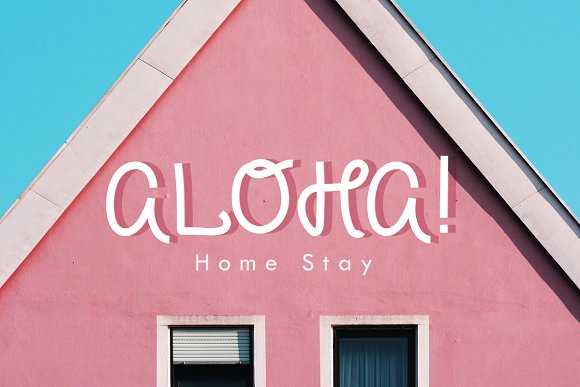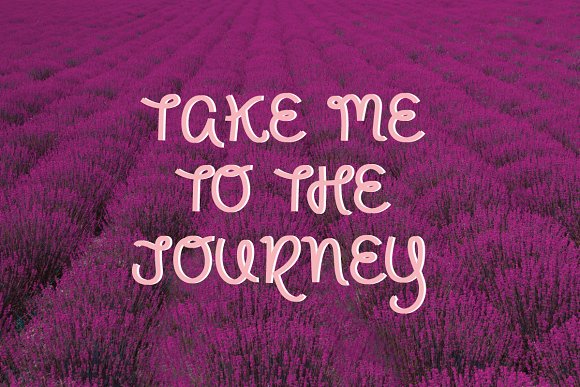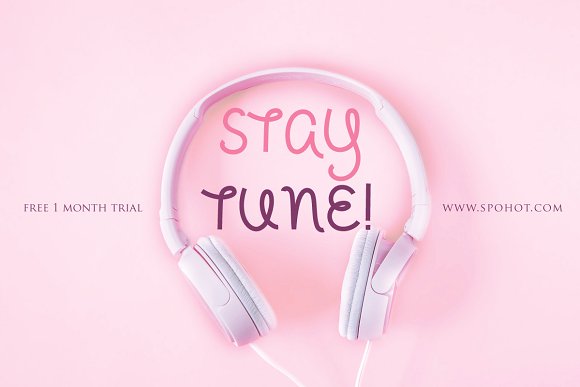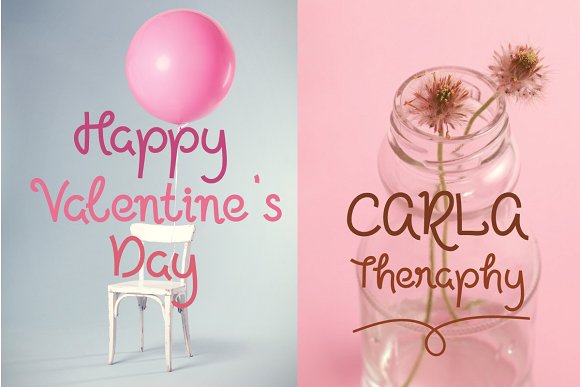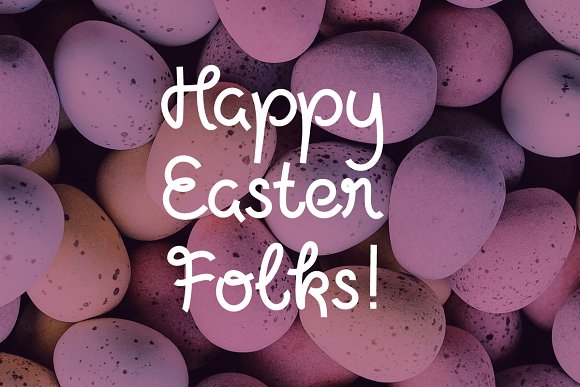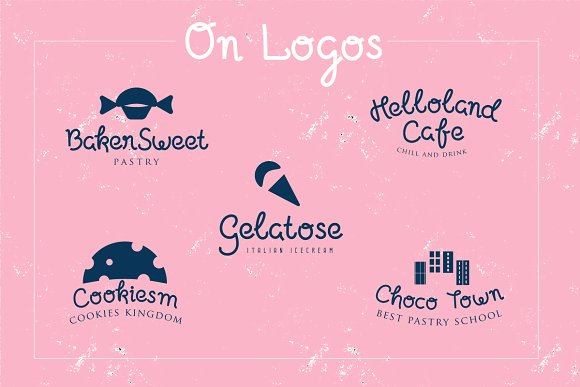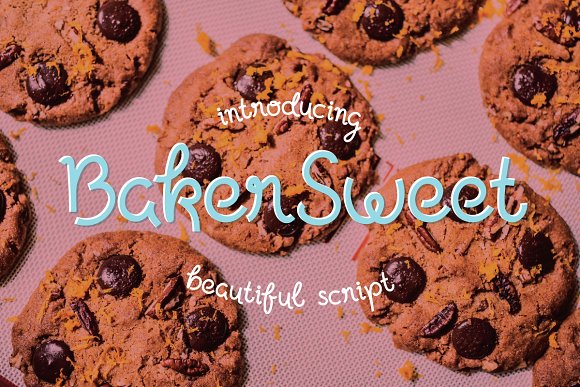
Bakersweet Font
BakerSweet is a curly beautiful script suitable for logos especially for bakery or restaurant, title,poster, menus, greeting card, and many more designs.